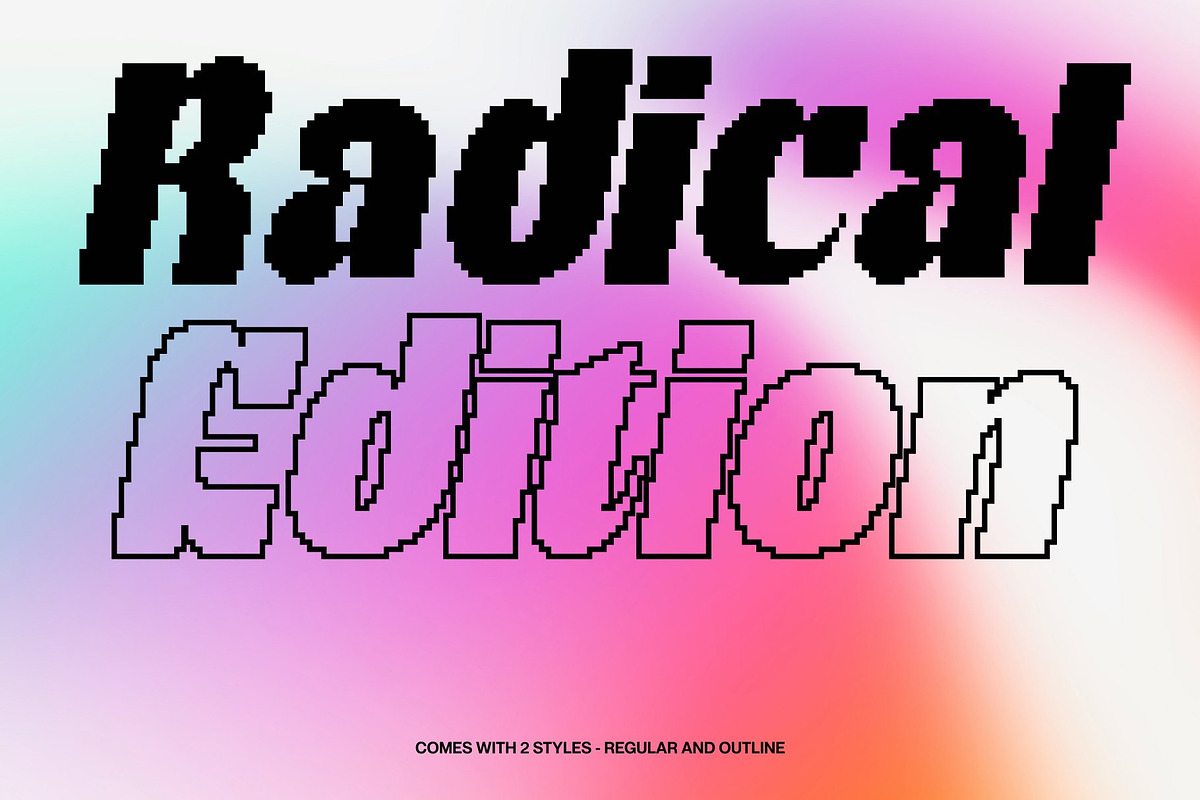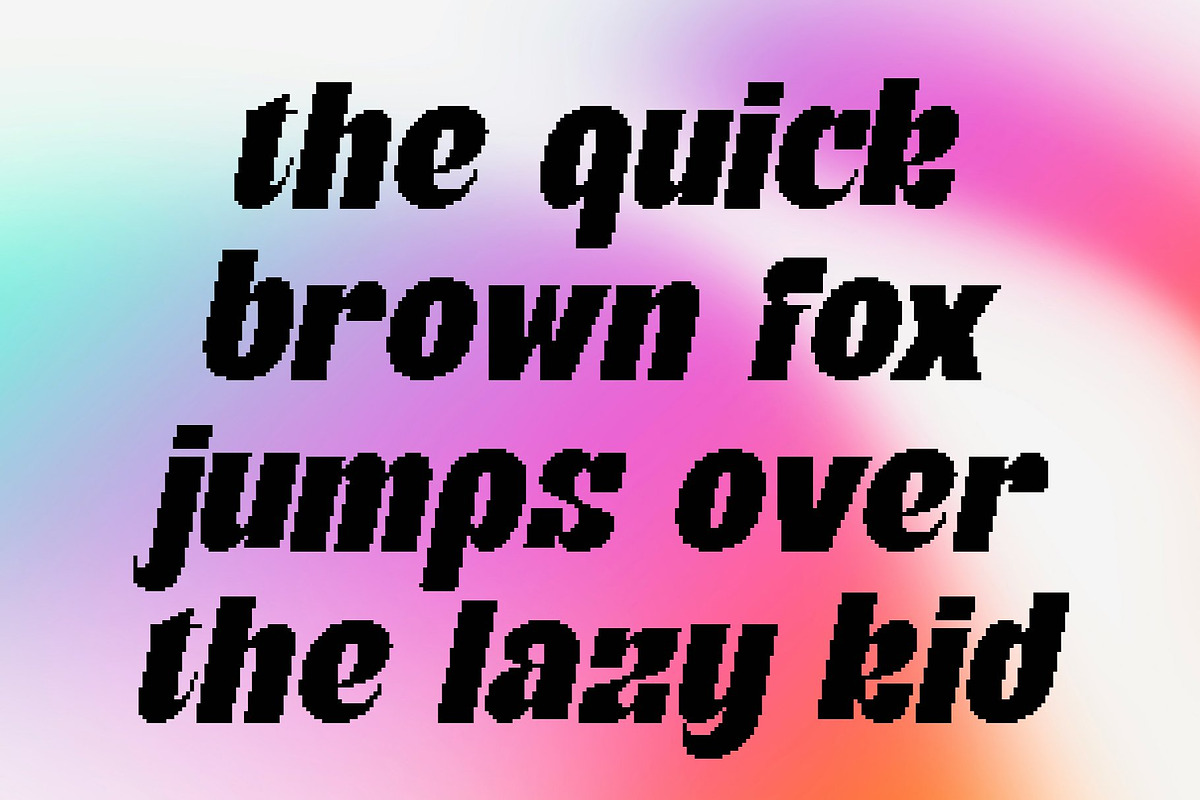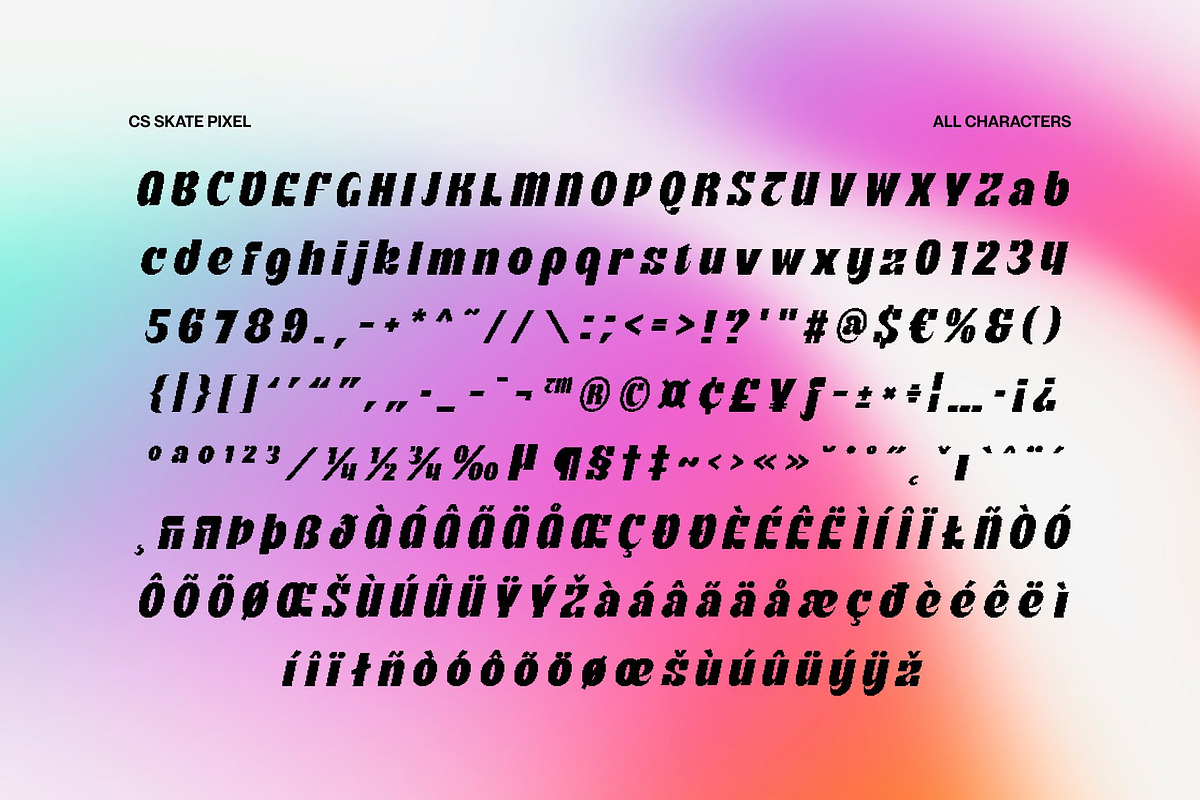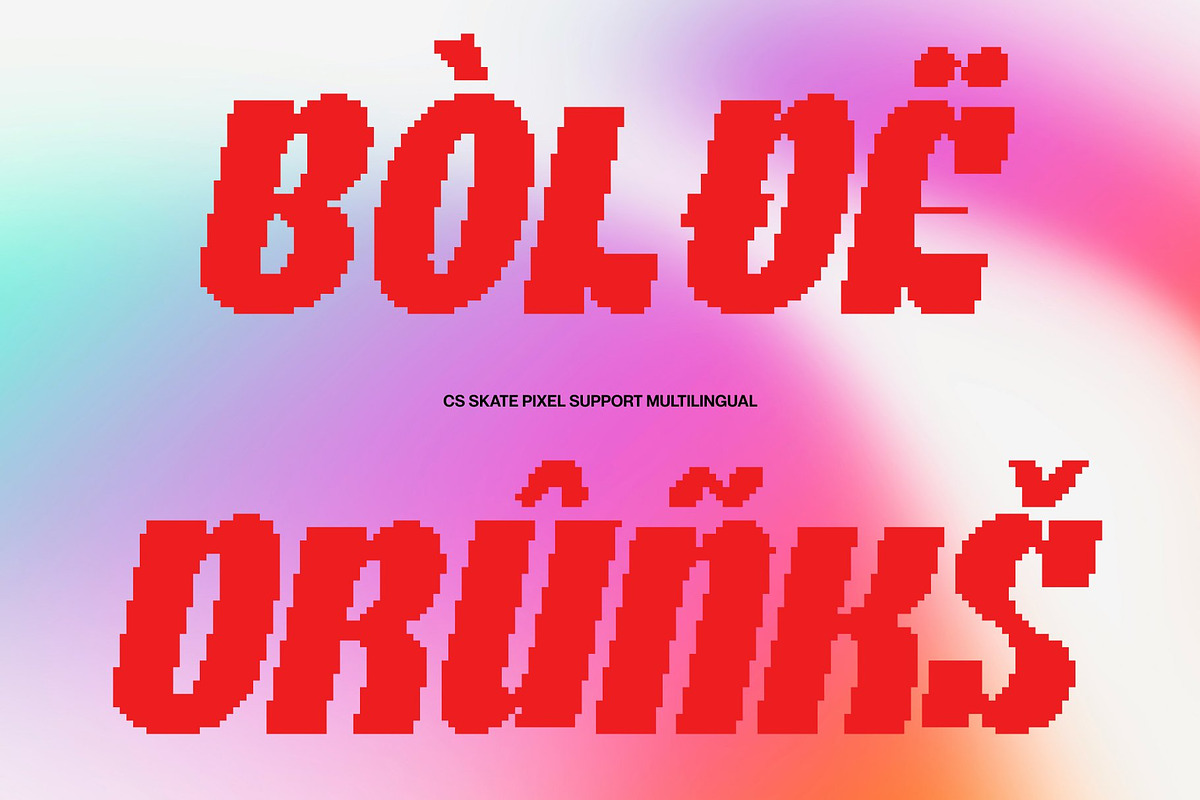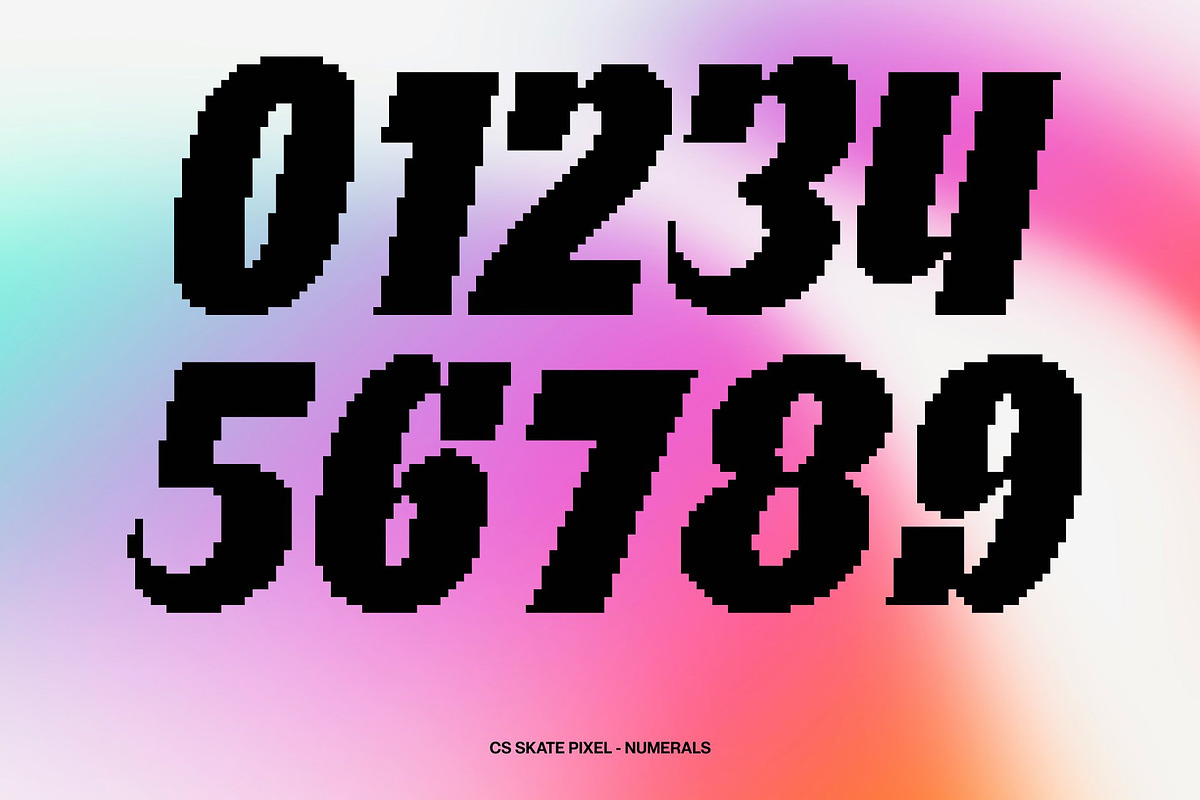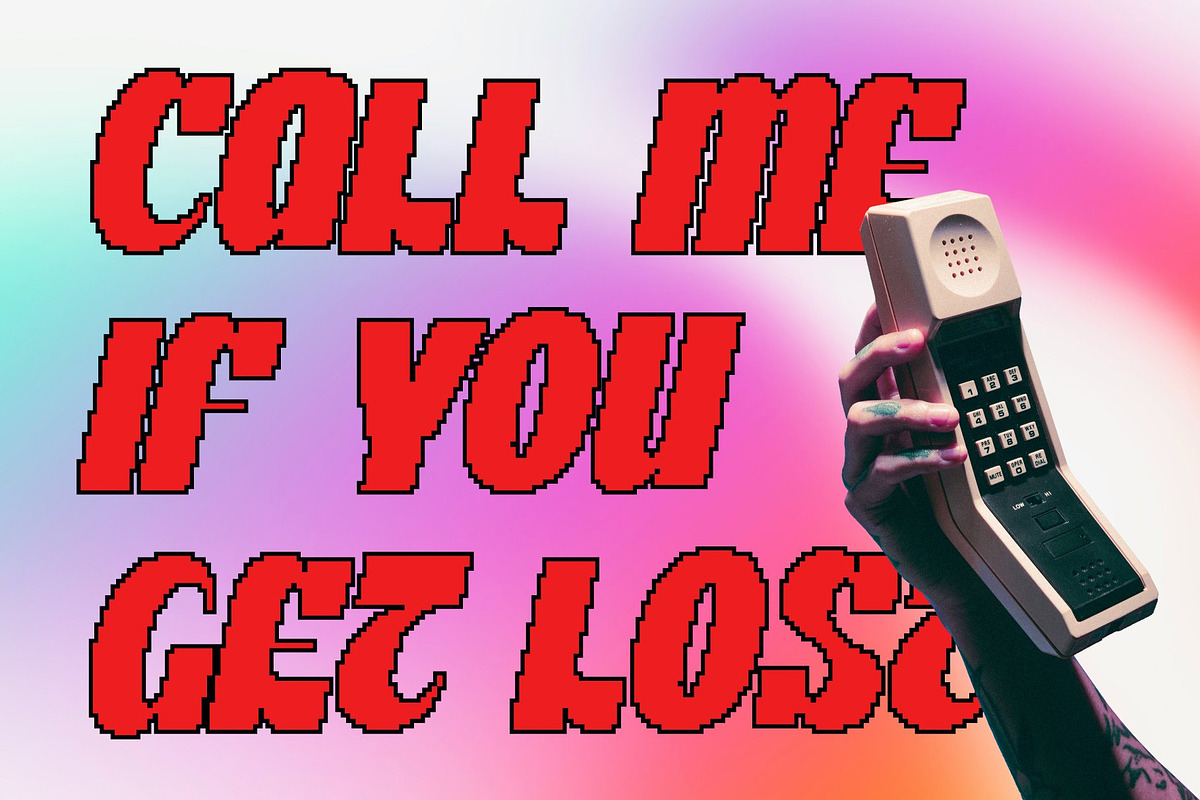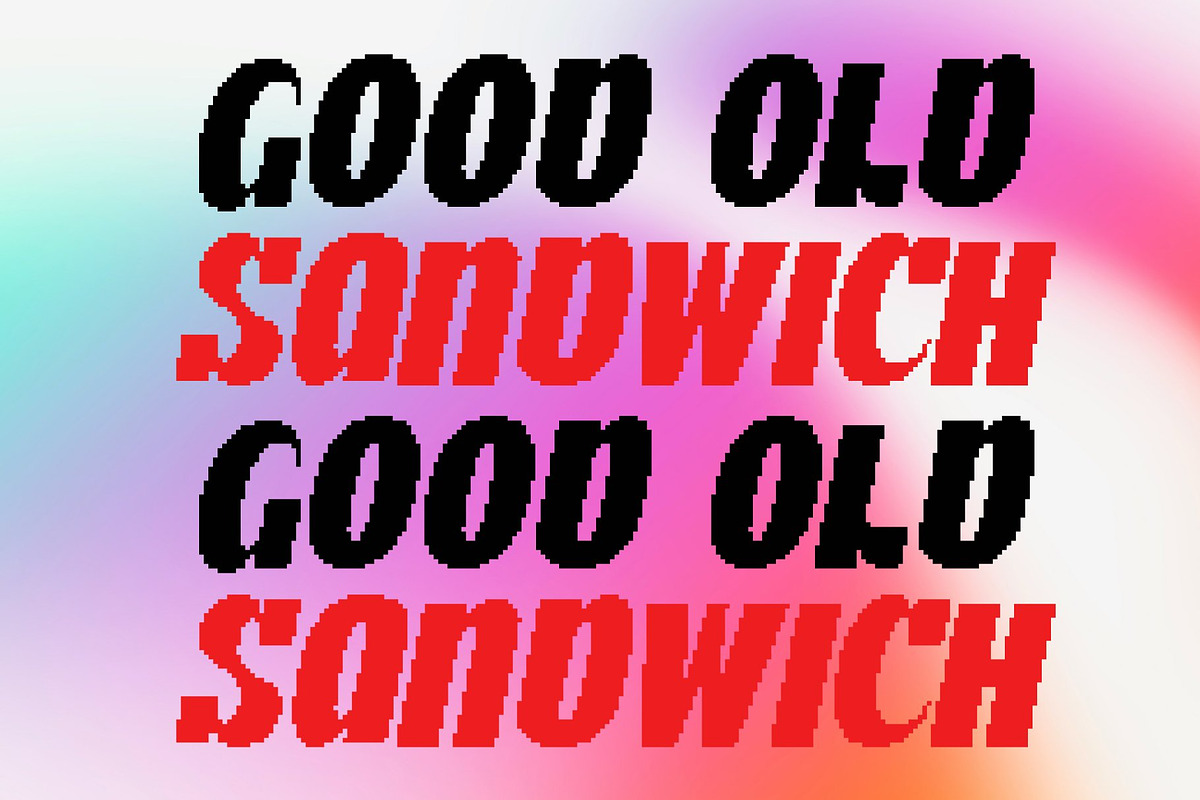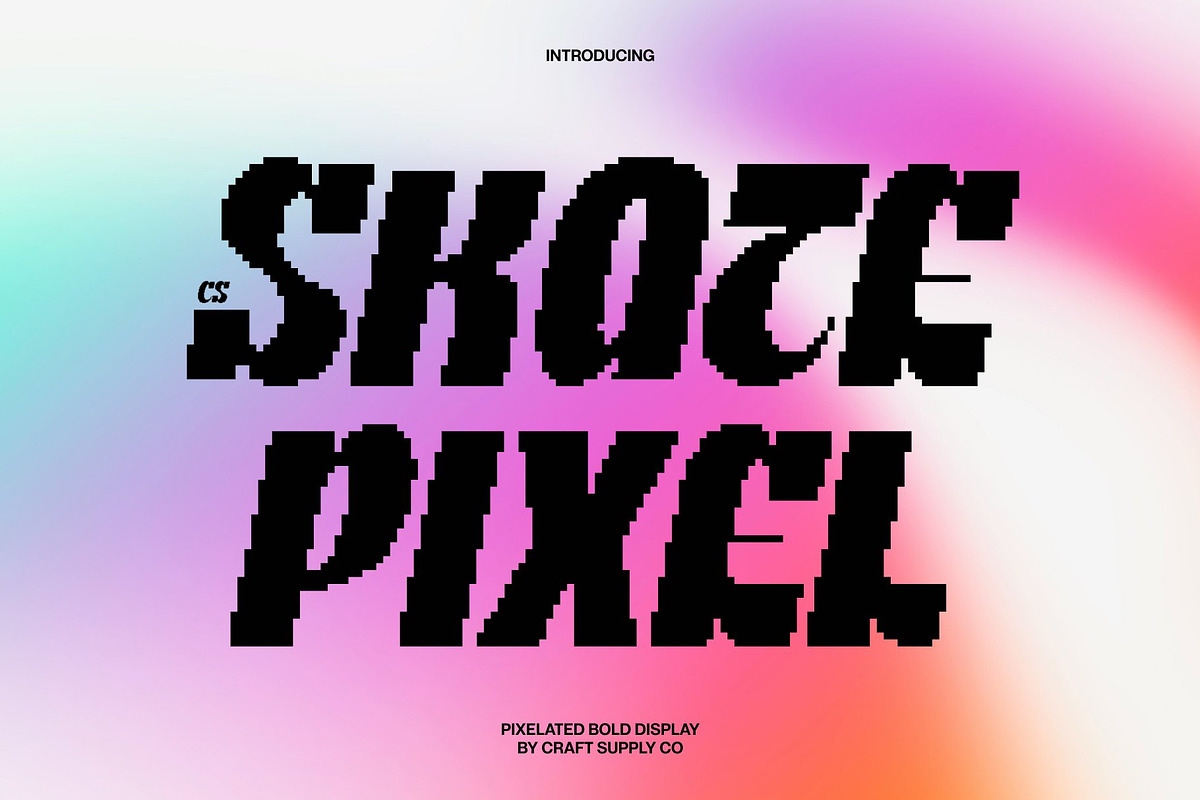
CS Skate Pixel
CS Skate Pixel – Modern Sans Serif with Quirky Flair
Bold Display Font with Pixel-Defined Elegance This is a striking display font that merges the strength of modern sans serif construction with the flowing grace of quirky curves enhanced by subtle pixel detailing. Its bold structure commands attention, while refined digital edges introduce a contemporary sharpness. The result is typography that feels powerful, artistic, and visually dynamic.
Organic Curves Meet Structured Pixel Geometry Inspired by the fluid beauty of quirky playful, this font features smooth, expressive curves that contrast beautifully with its solid geometric base. Pixel-infused accents add crisp definition, creating a compelling balance between ornamental flow and digital precision. This fusion produces a look that is both dramatic and elegantly controlled.
Designed for Impactful Visual Statements With its confident weight and sculpted rhythm, this font excels in branding, editorial headlines, posters, and statement graphics. The interplay between graceful motion and pixel clarity ensures strong visual presence across both print and digital platforms.
Versatile Expression with Modern Artistic Edge Though bold and eye-catching, this font remains adaptable to various creative directions from high-fashion branding to expressive contemporary layouts. This font elevates typography with sophistication, movement, and a unique pixel-artistic identity that feels both timelessly decorative and refreshingly modern.